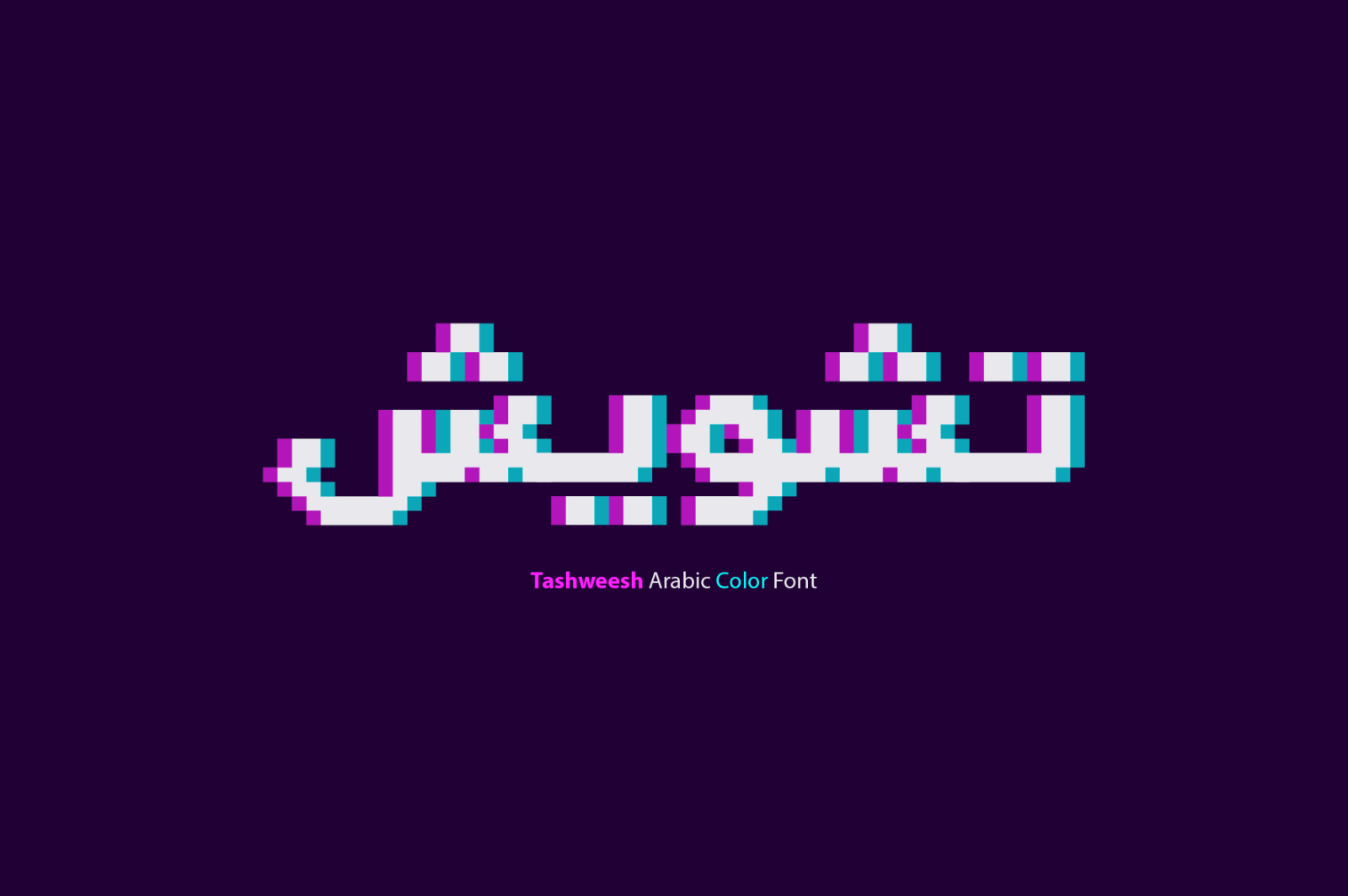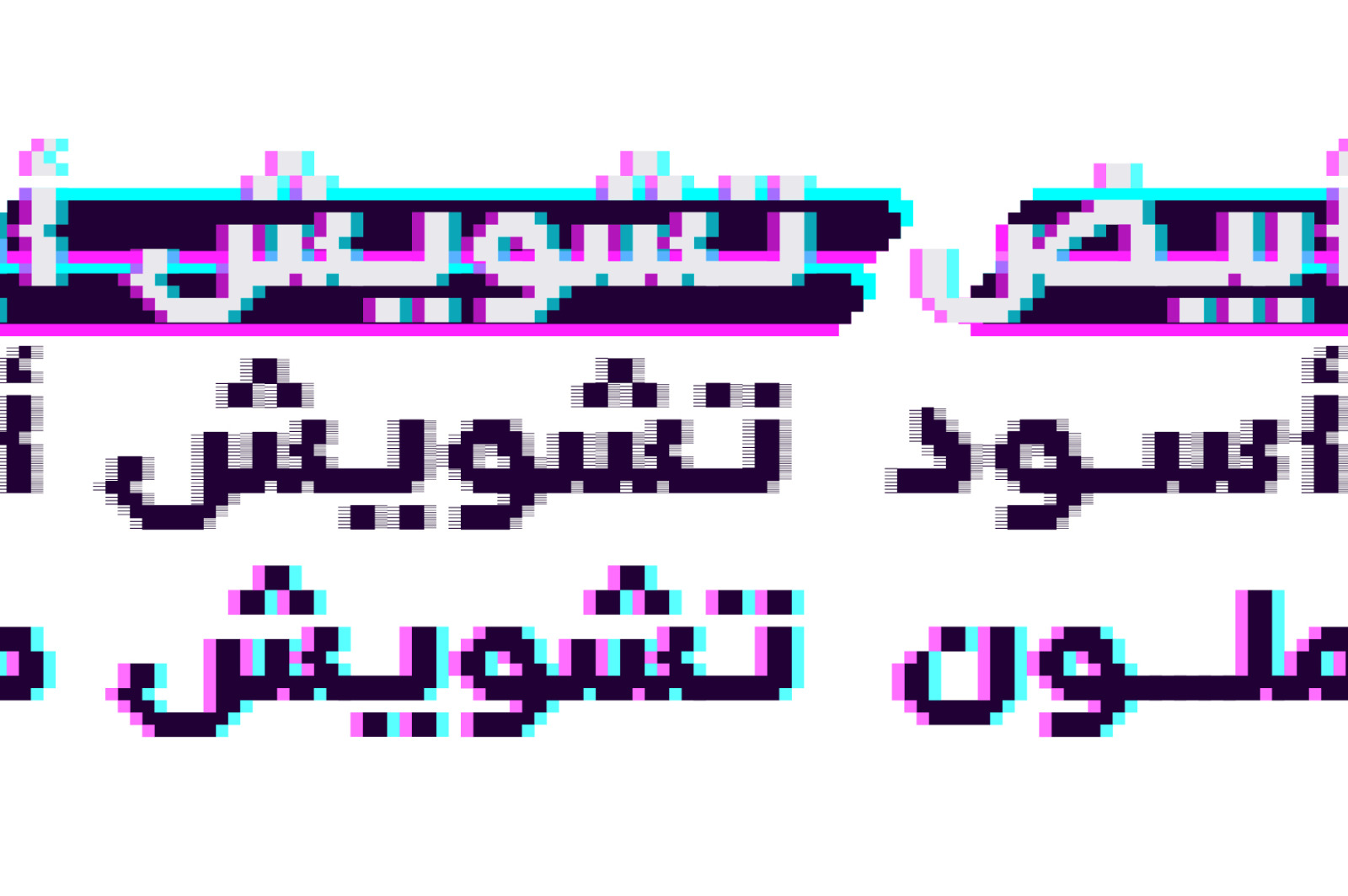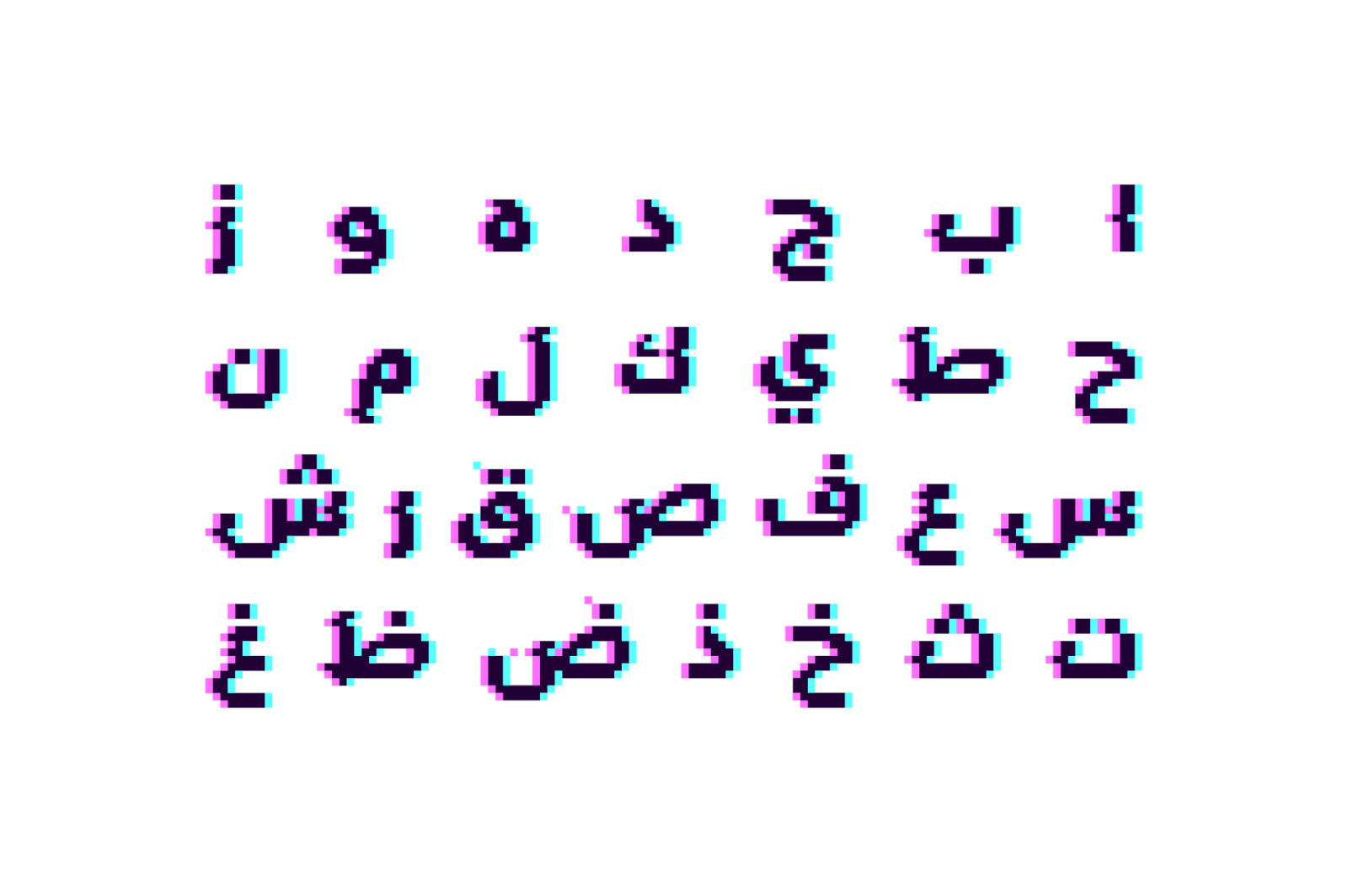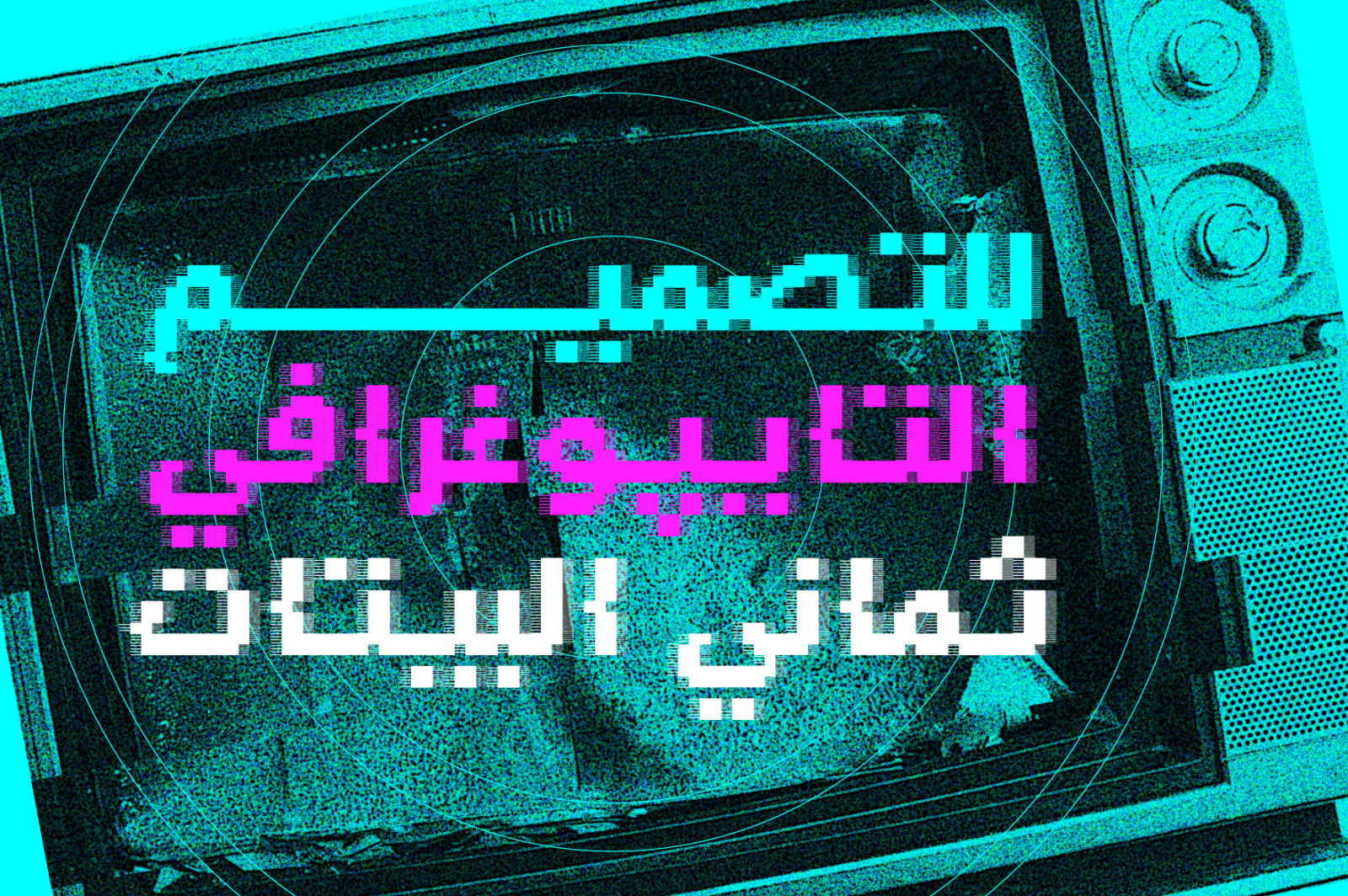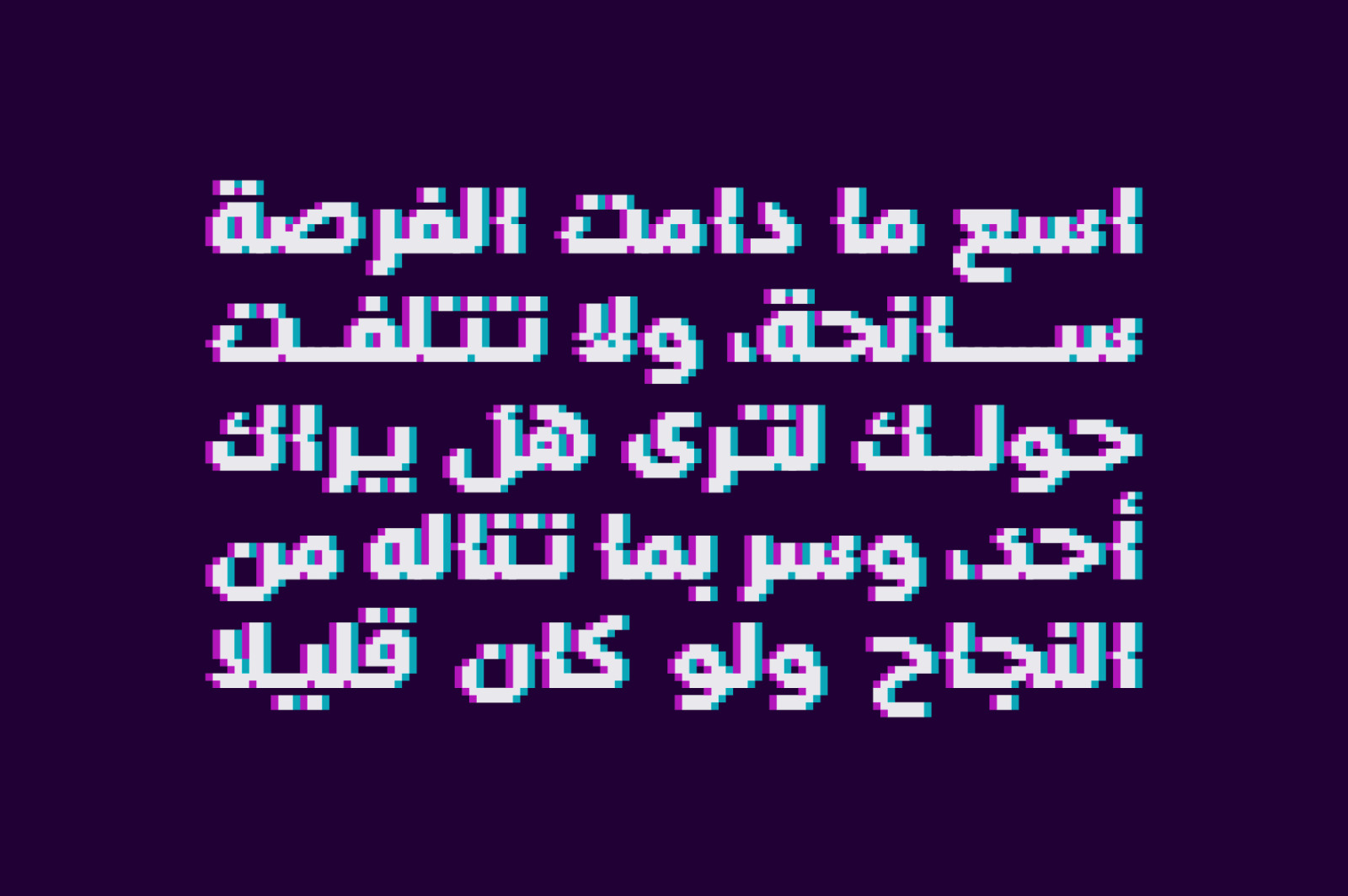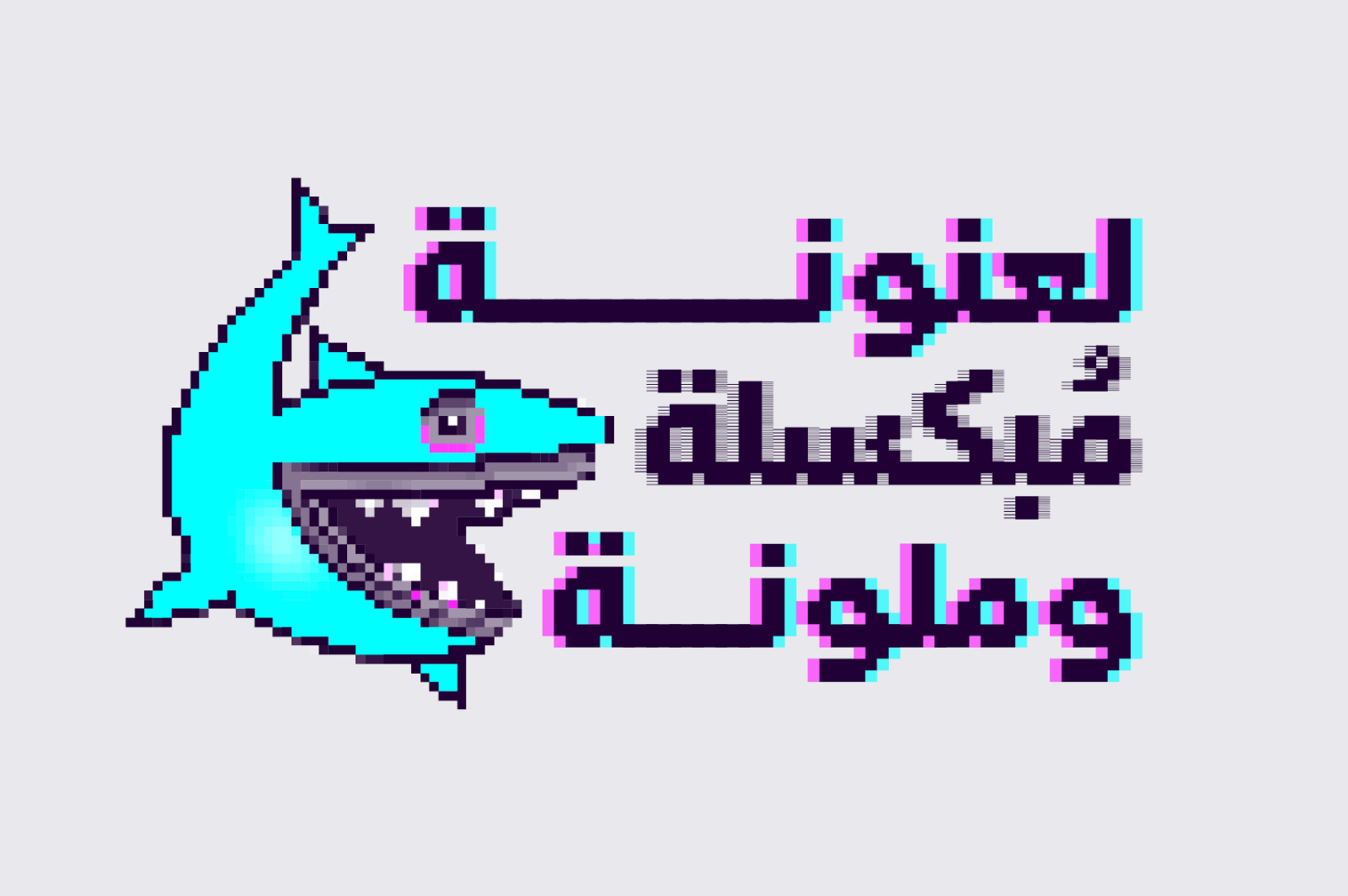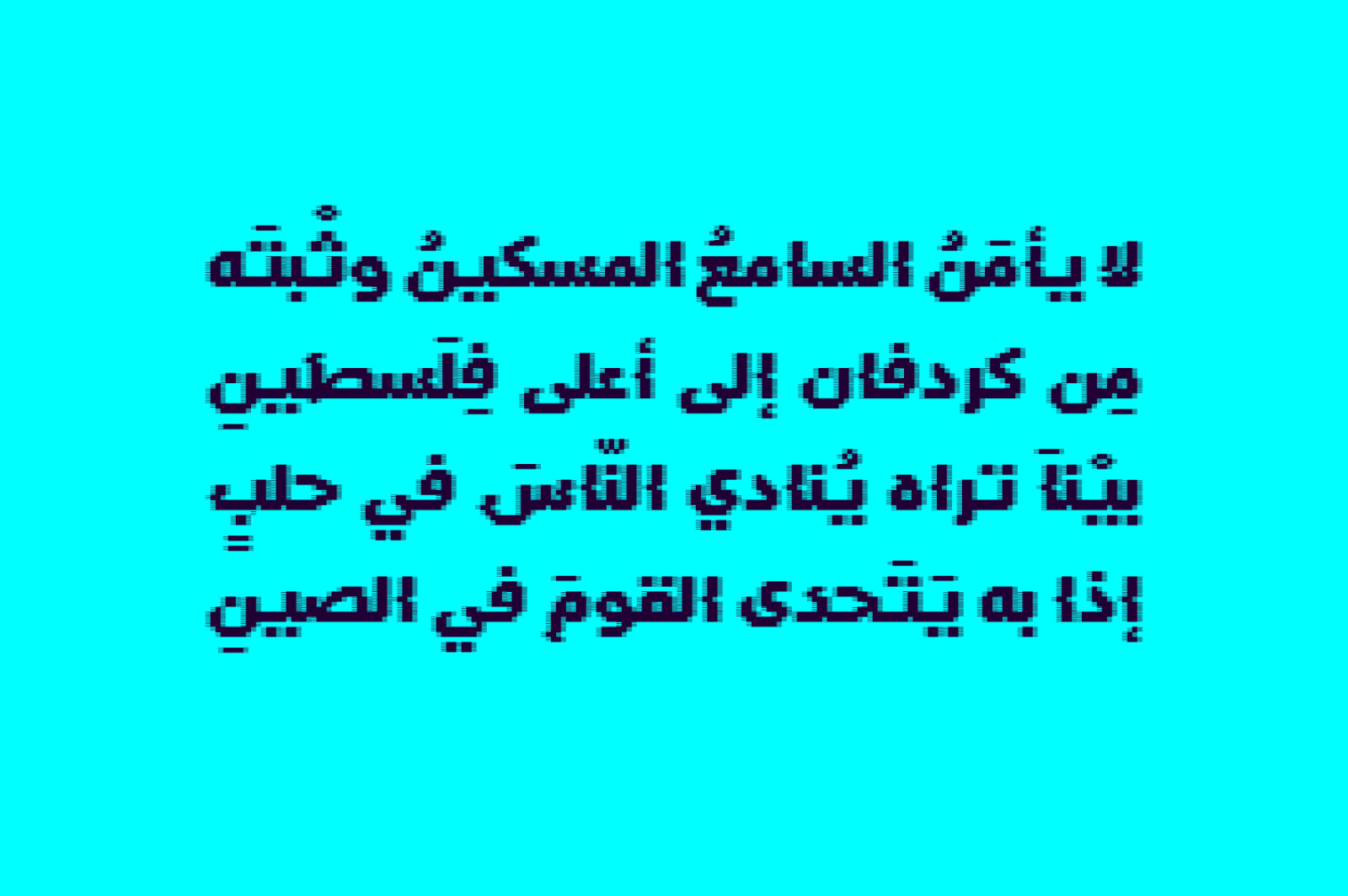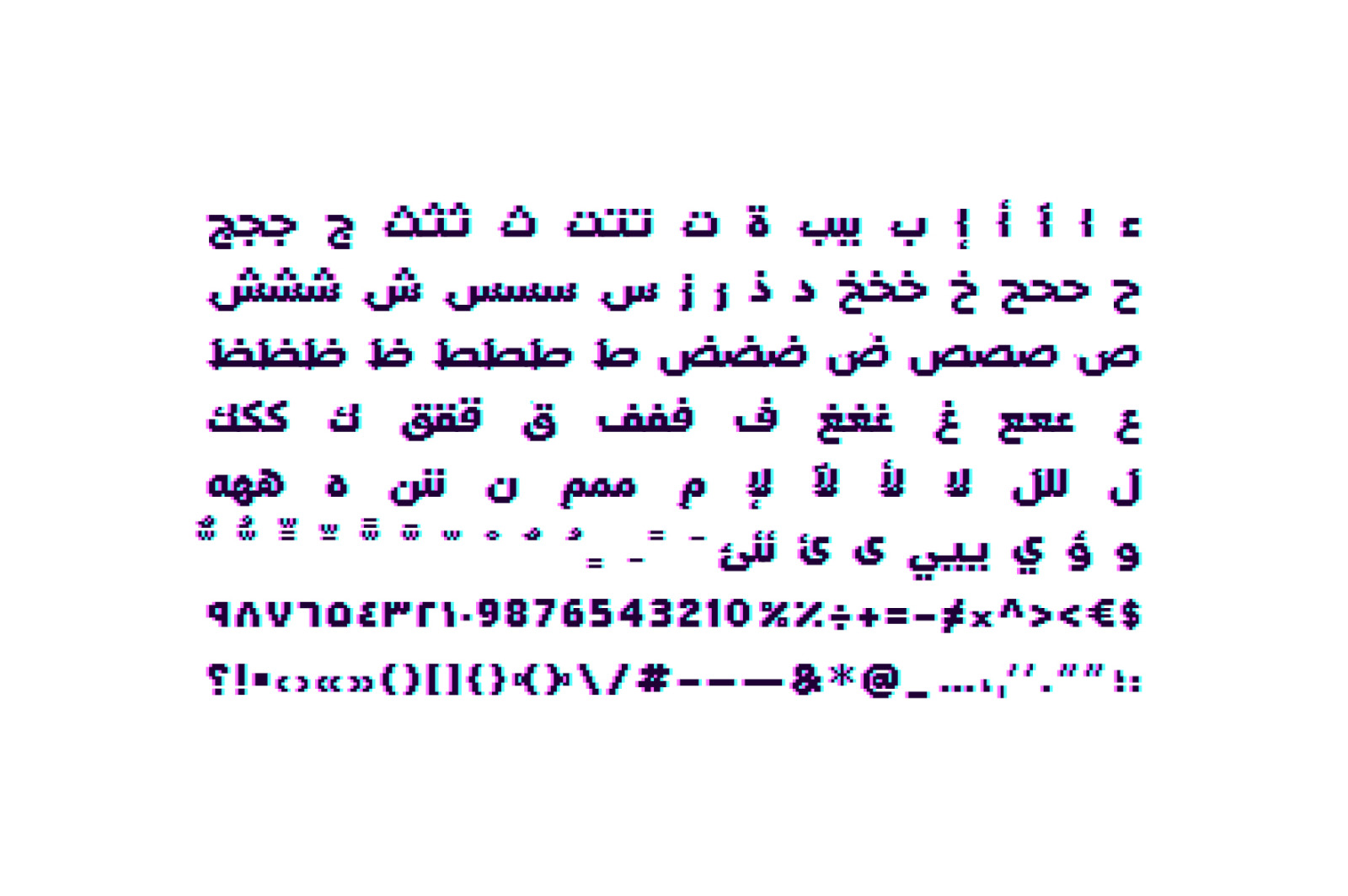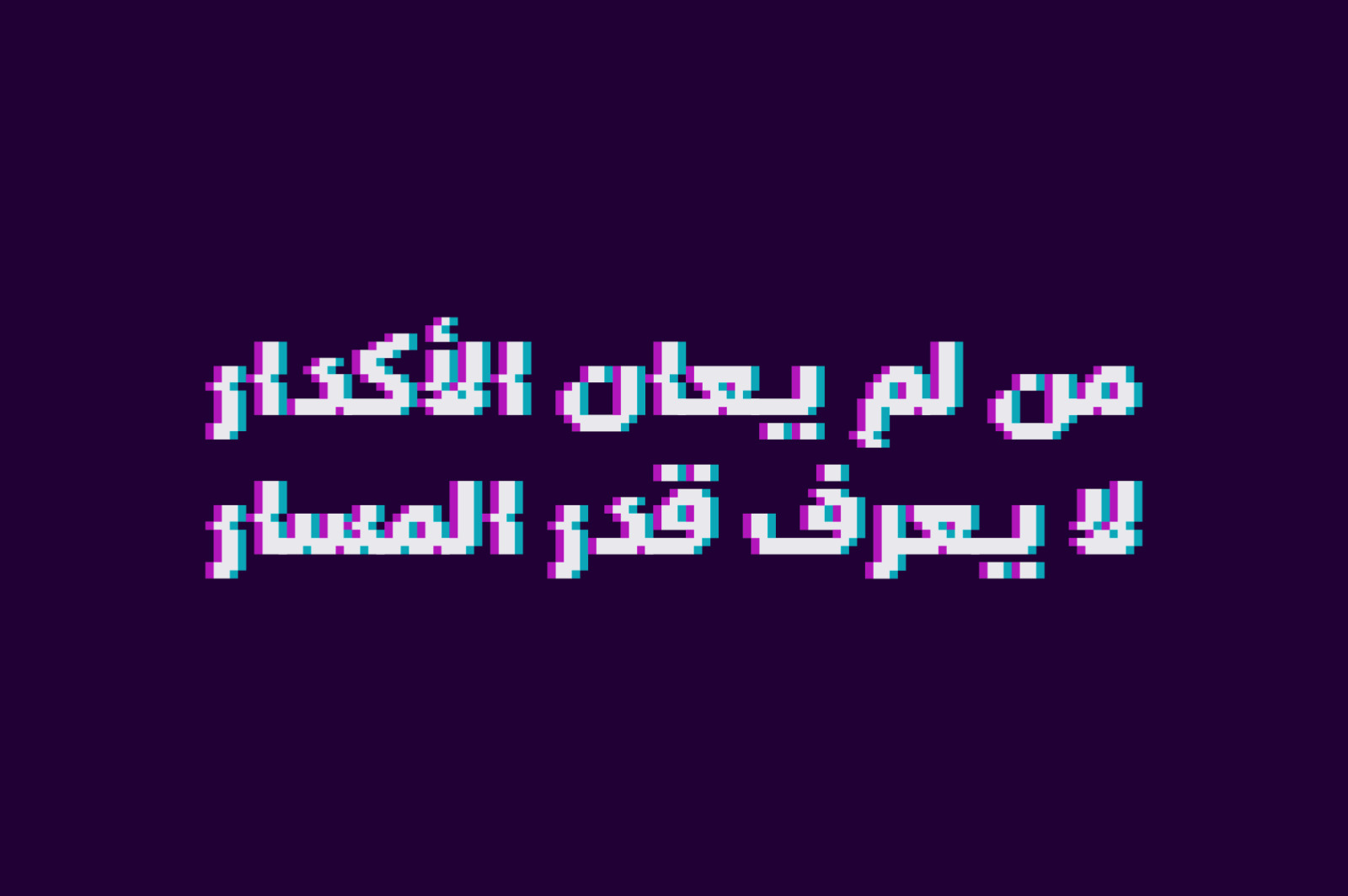
Tashweesh - Arabic Color Font
Tashweesh (the Arabic word for 'Disruption' or 'Obfuscation') is an Arabic color font that features an 8-bit pixellated letterform design. The font is suitable for most modern applications including web, print and smart phones. Tashweesh typeface consists of three styles (Dark, Black and White).